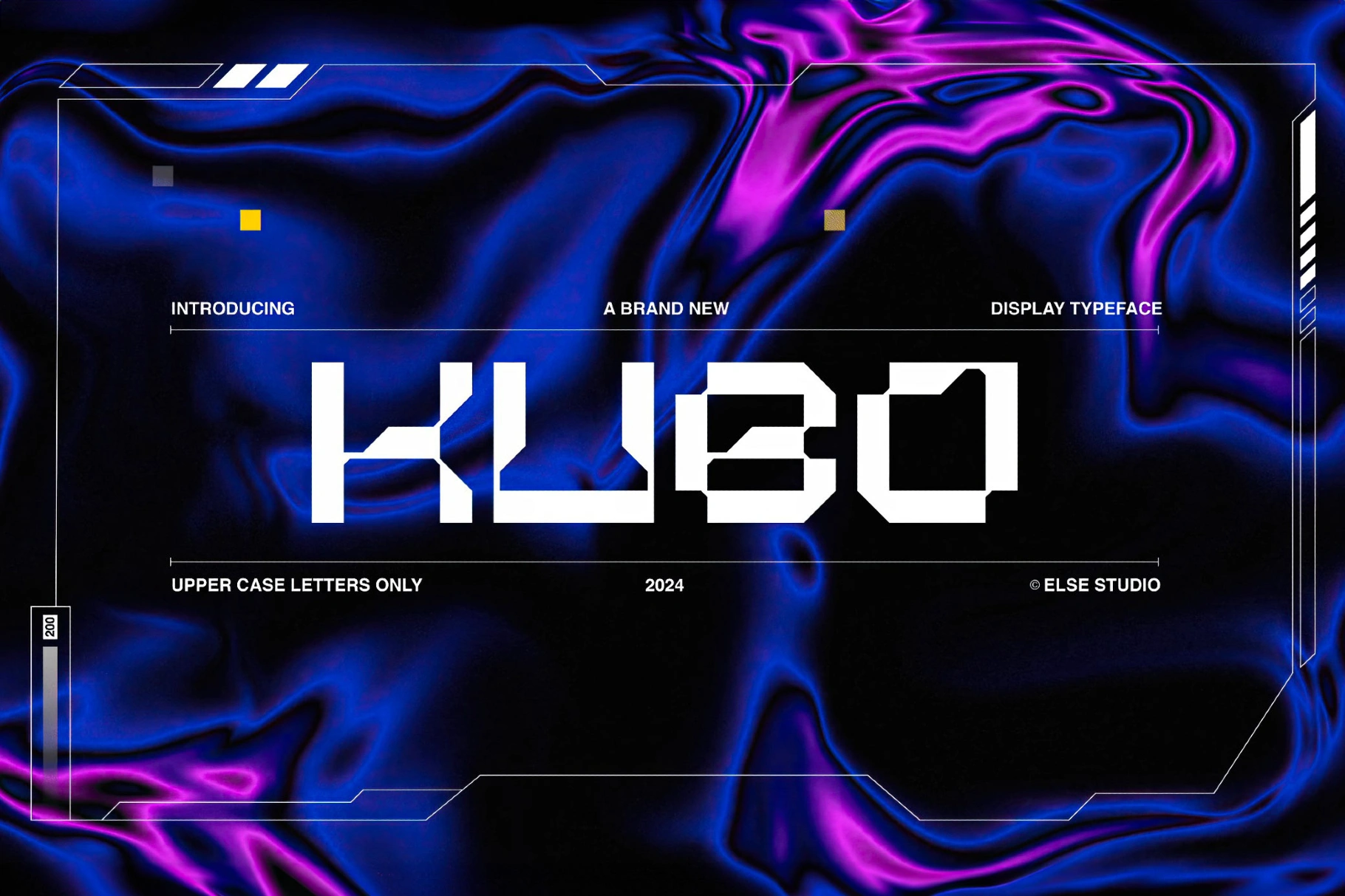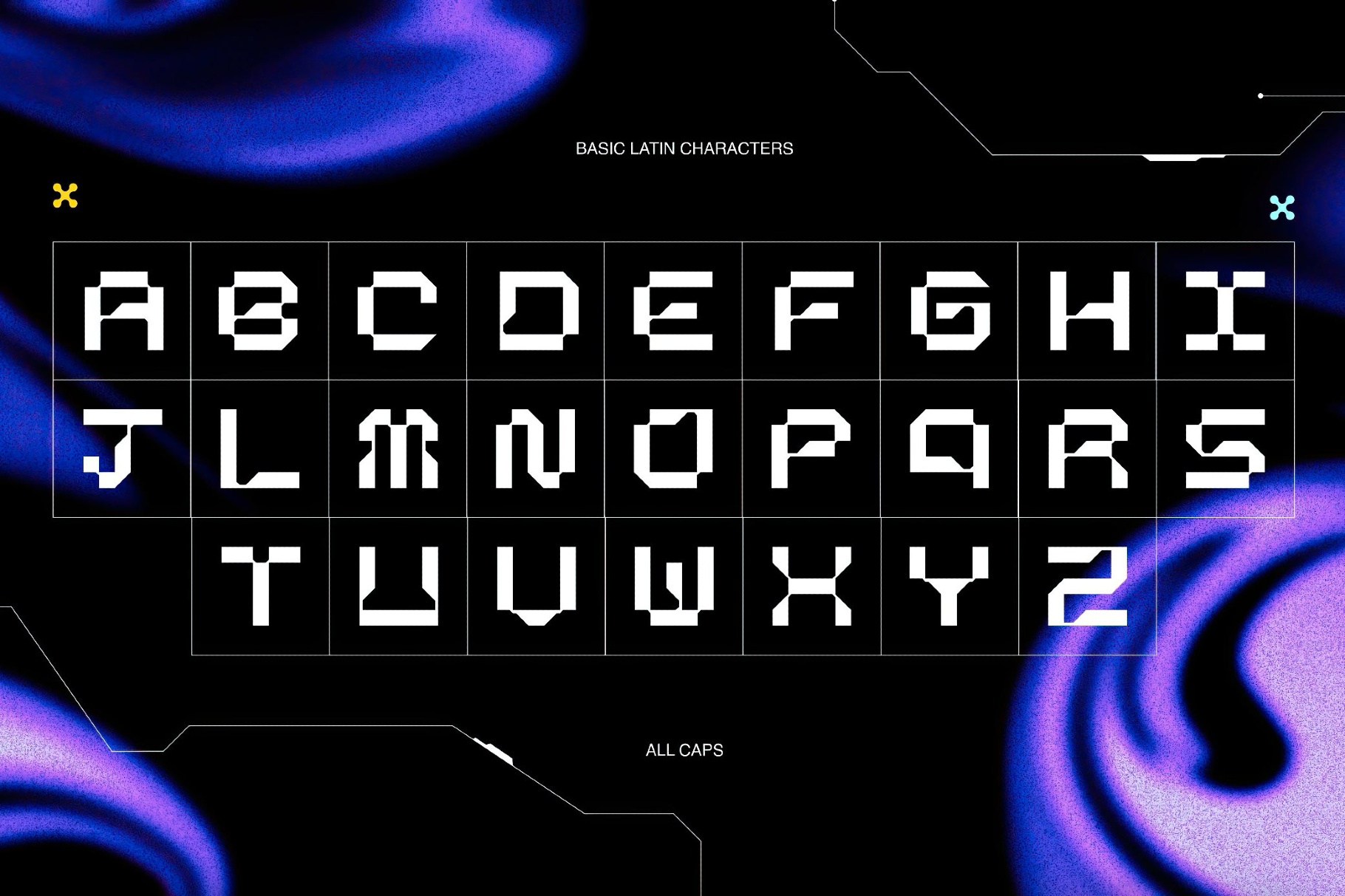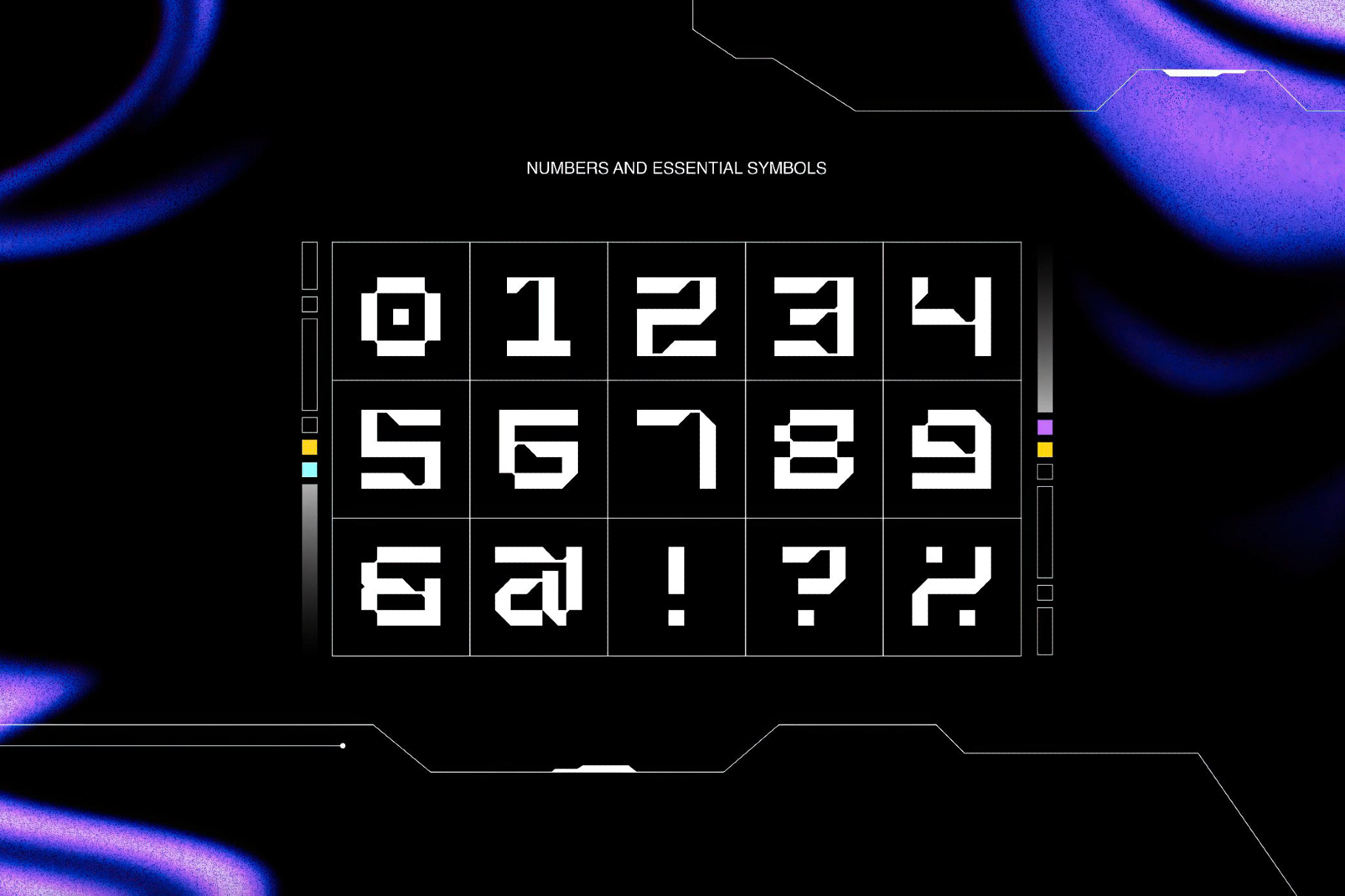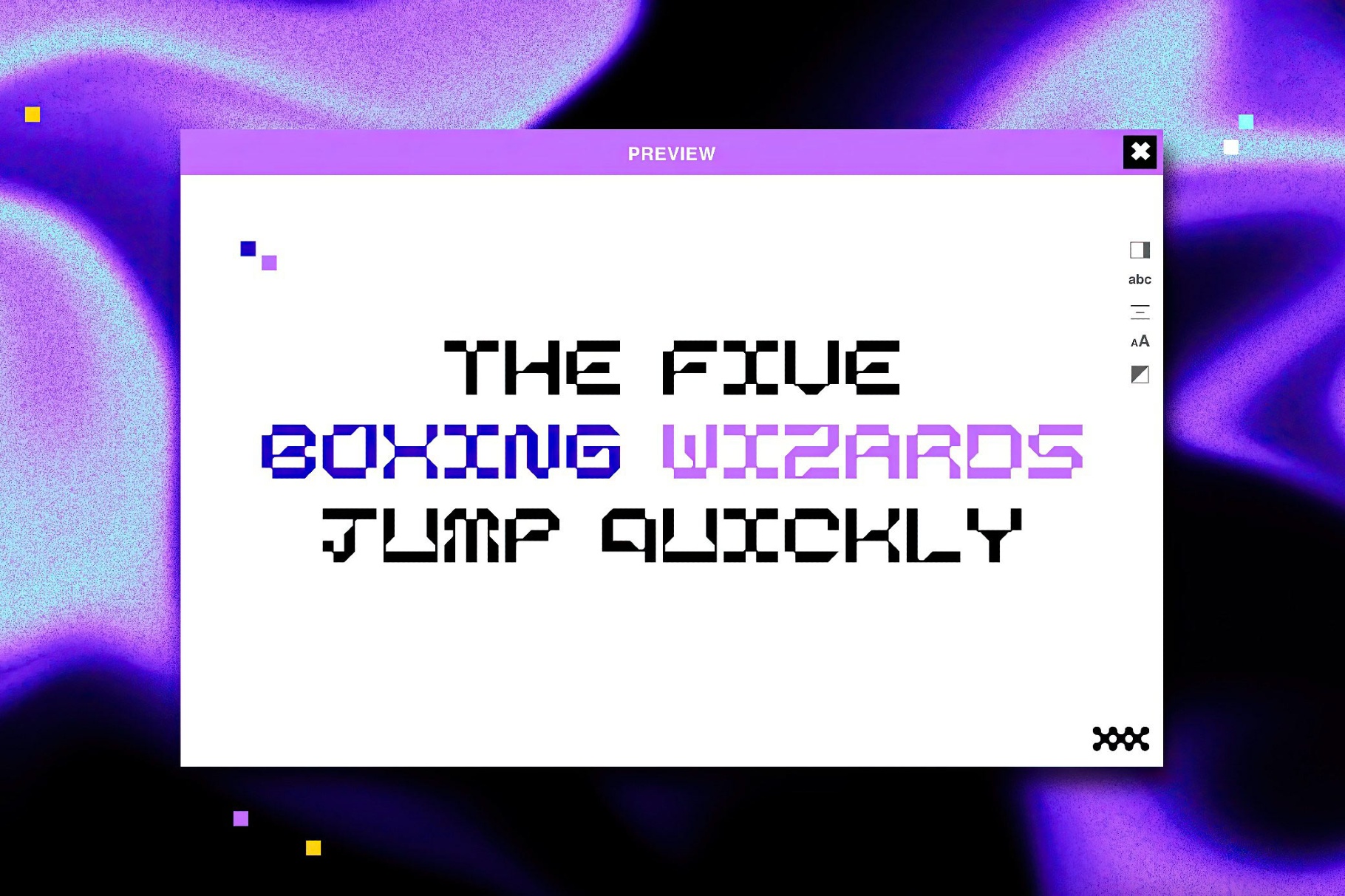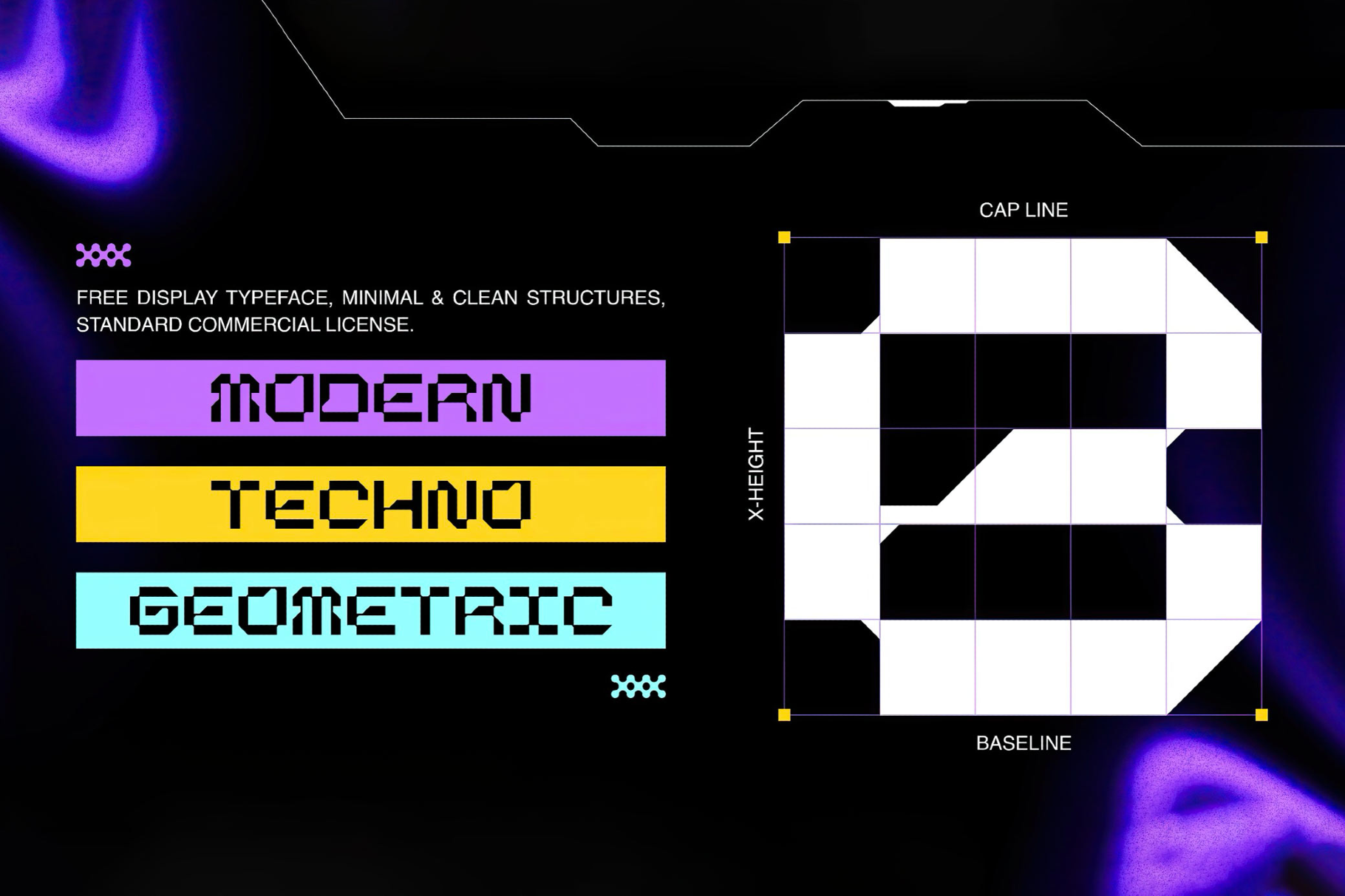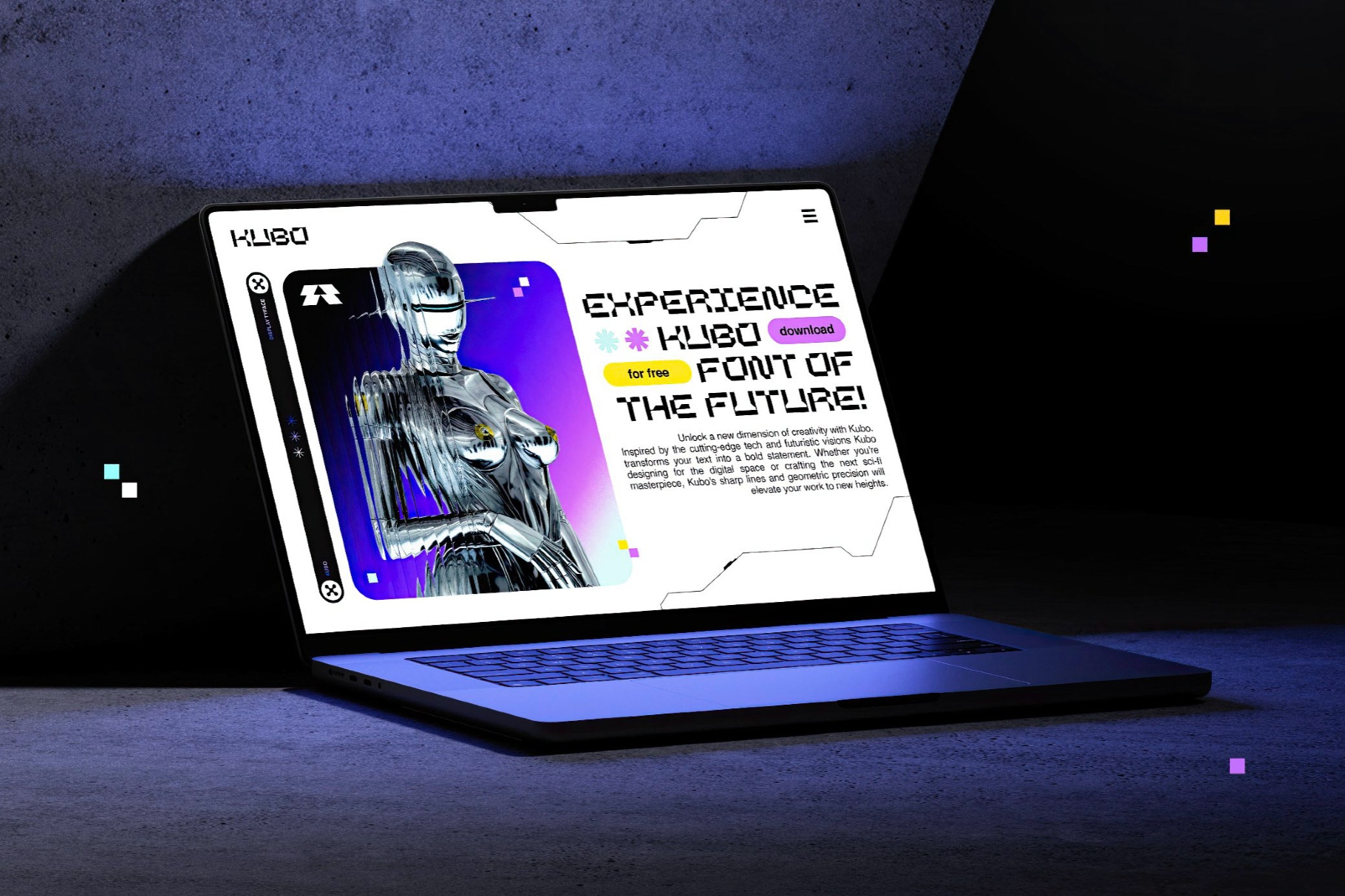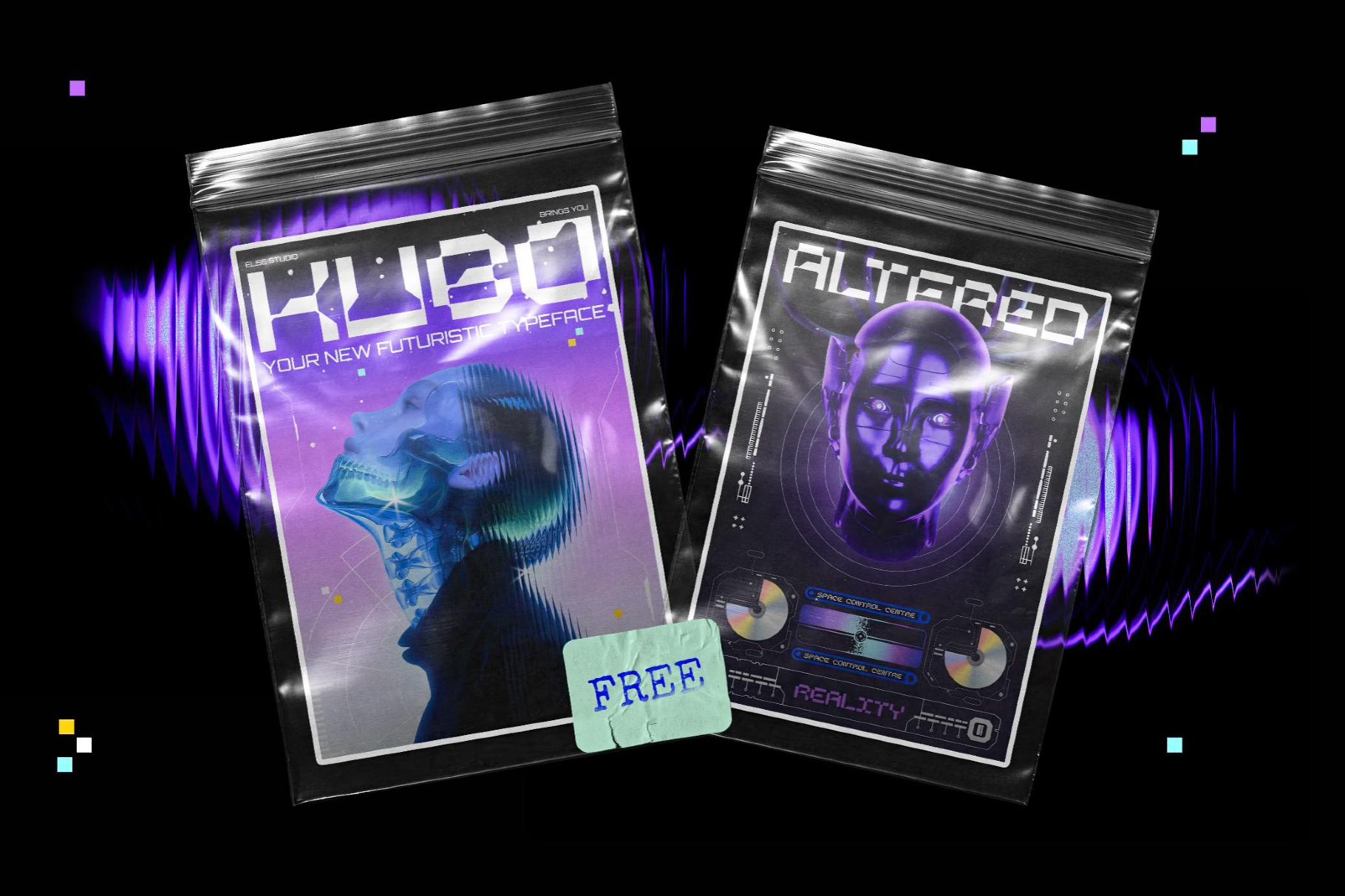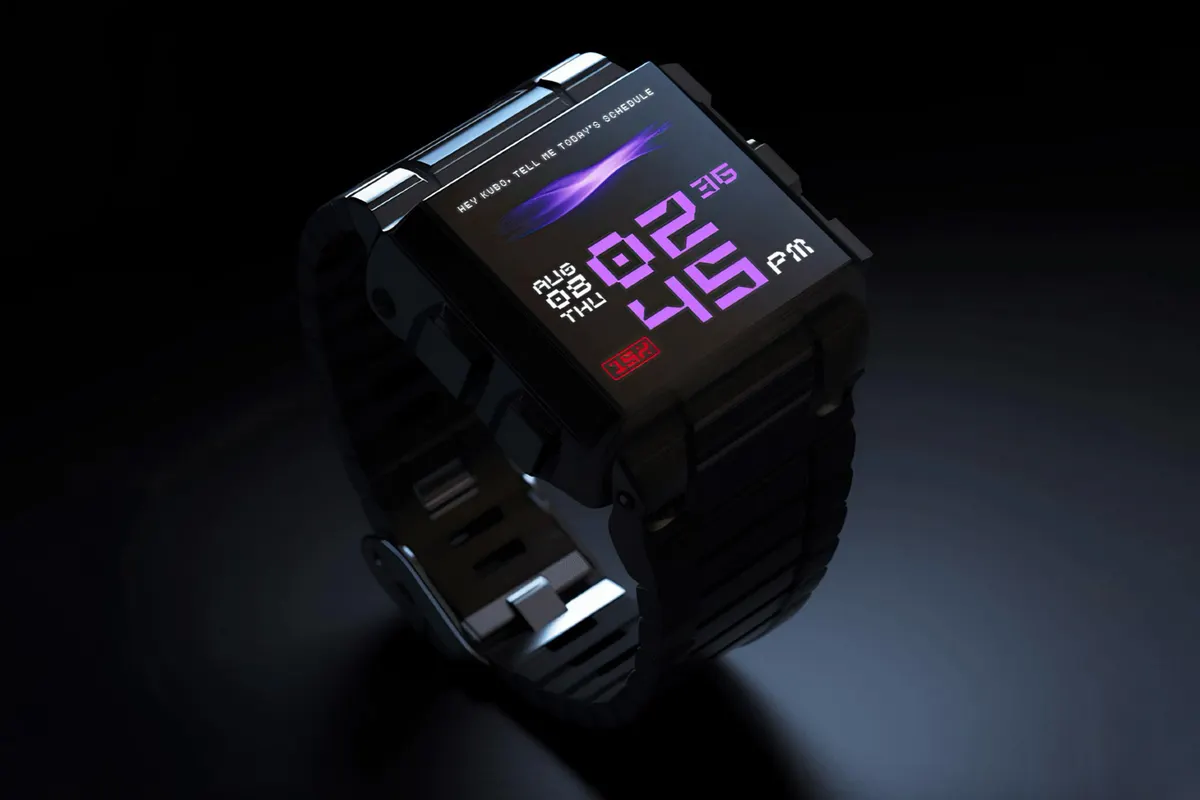
Kubo Font
KUBO
Kubo is a modular Y2k font with stacked strokes, tight spacing, blocky silhouettes, and a toy-brick geometry that recalls ’80s arcade title screens and early vector logos. It suits poster headlines, splash screens, dashboard titles, tech product branding, event flyers, landing pages, motion graphics wordmarks, packaging, kids’ editorial, game UI labels, sticker graphics, and short animated openers.
- Uppercase letters only.
- Numbers, punctuation, and basic symbols.